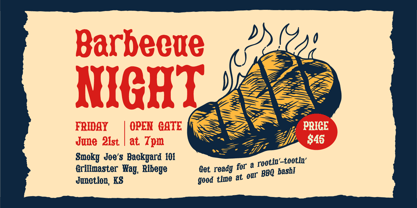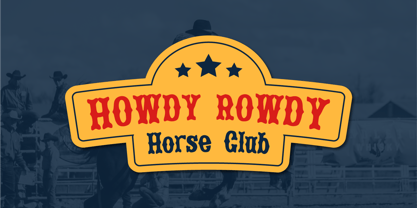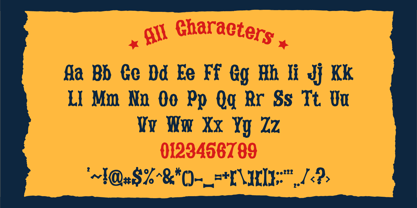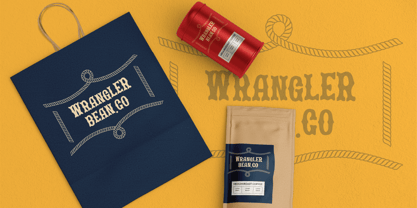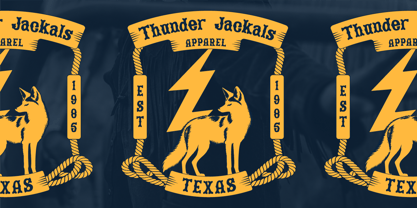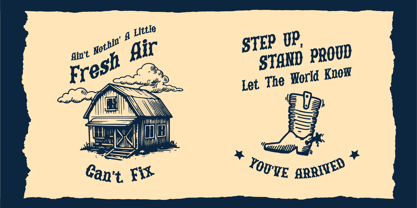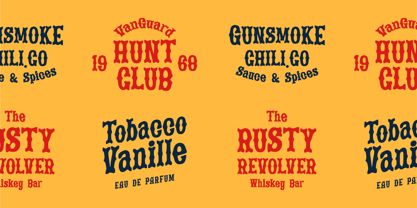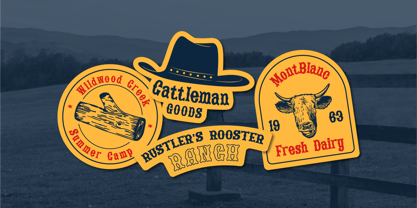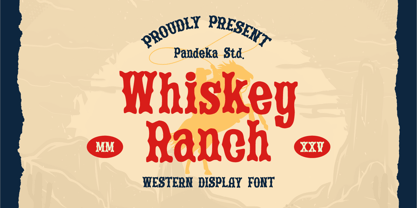
Whiskey Ranch
The Whiskey Ranch Font Family was designed by Sagara Nararya and published by Pandeka Studio. Whiskey Ranch contains 1 styles. More about this family
Whiskey Ranch – Western Display Serif
Whiskey Ranch is a bold serif font with a rustic, vintage aesthetic, perfect for western-style branding, cowboy-themed designs, signage, packaging, and classic typography. Its timeless, rugged charm makes it ideal for bold lettering, rustic posters, and unique display projects.